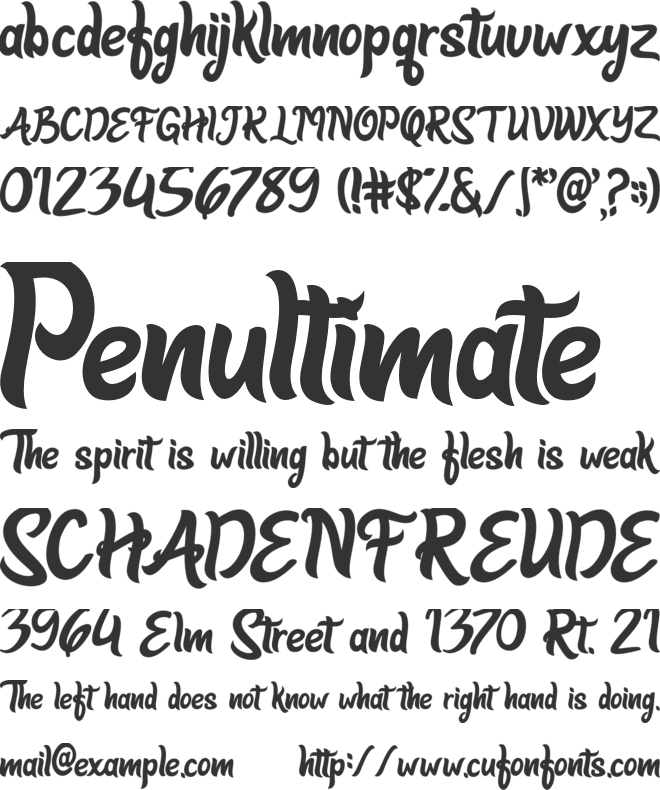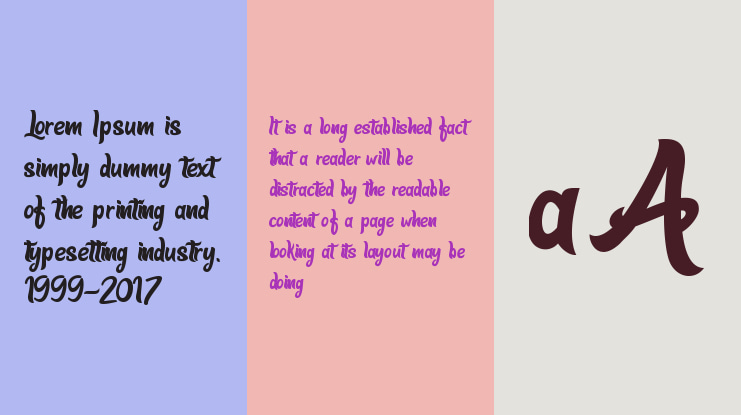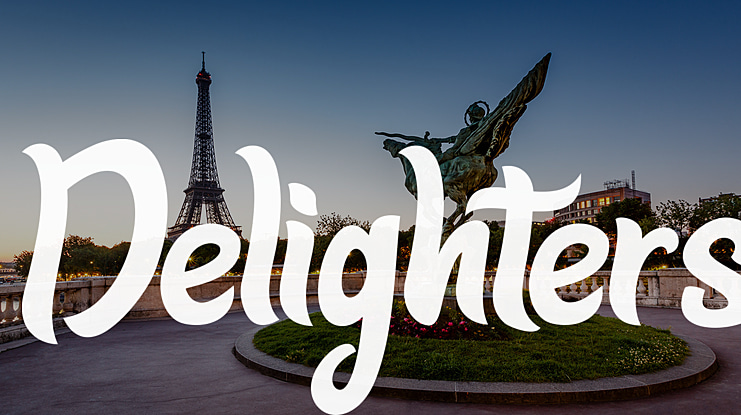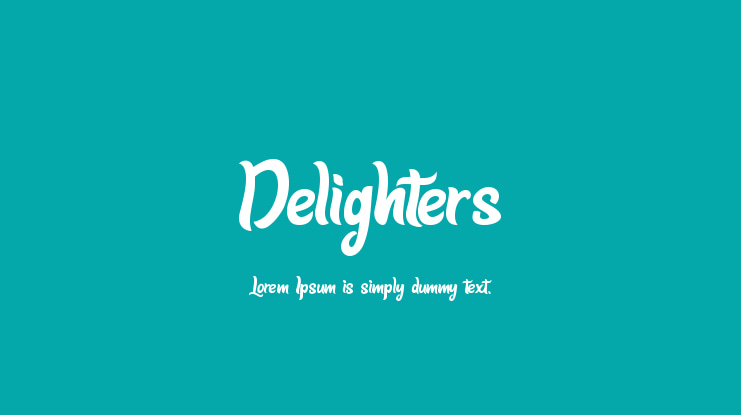
Delighters Font
Hi friends, Introducing my font Delighters is a Font Brush made from handwriting that contains lowercase letters, uppercase letters, symbols, and also supports multiple languages. Delighters also come to help you make some products such as making posters for branding, packaging, beautiful fashion designs, suitable for banner